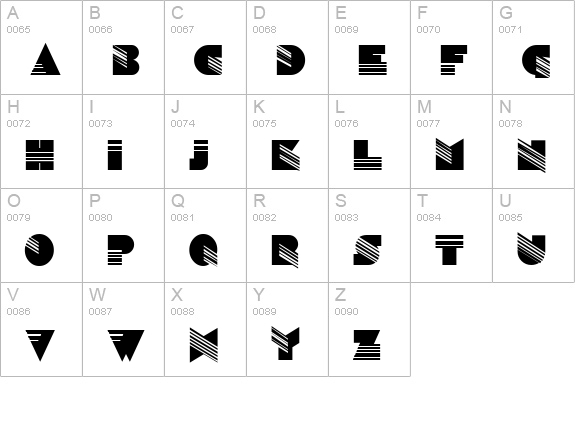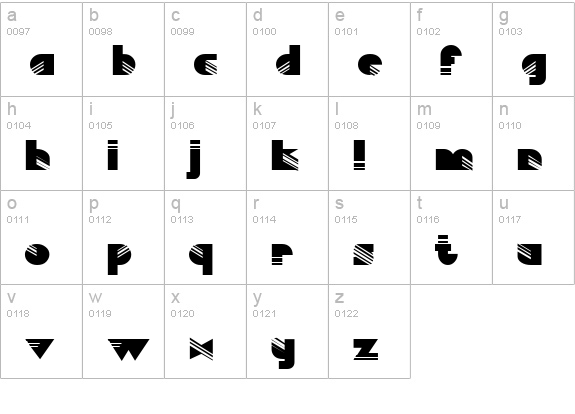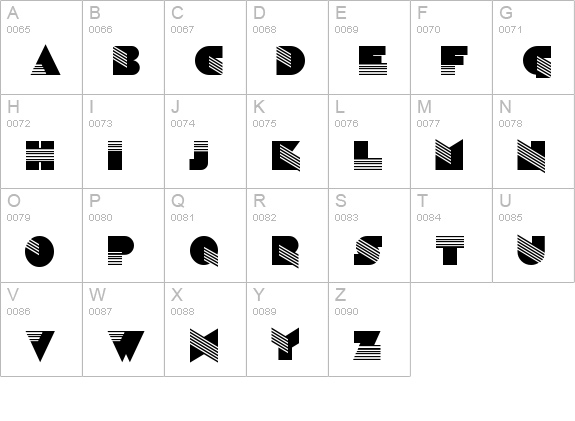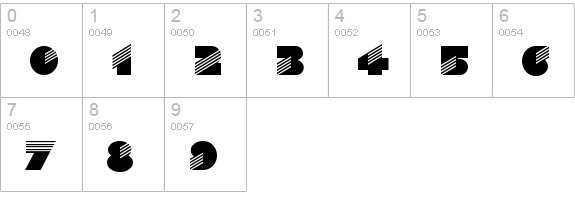
Abracadabra Font Details
Introducing Abracadabra font - a whimsical and enchanting typeface that will add a touch of magic to your designs. With its playful curves and quirky details, Abracadabra is perfect for creating spellbinding headlines, invitations, and posters. This unique font is sure to captivate your audience and leave them spellbound. The best part? Abracadabra font is available for free download at FontsMarket.com. Now you can easily access this charming font and bring a touch of magic to your projects without any cost. Don't miss out on the opportunity to add a sprinkle of enchantment to your designs with Abracadabra font. Download it today and let your creativity shine!